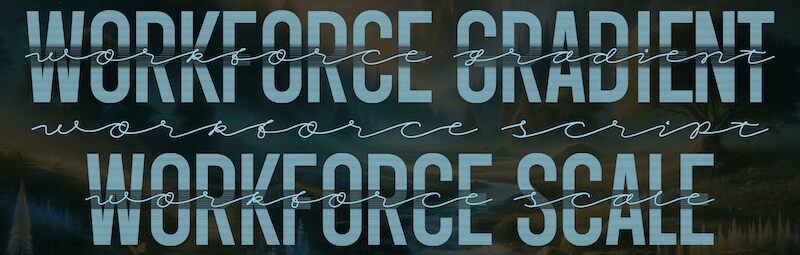
Workforce Gradient PERSONAL USE Regular
Workforce Gradient is a stylish blend of geometric sans-serif with swashes and script letters, ideal for logos, posters, branding design and other modern branding projects with a distinctive look and professional feel.
Designed by Mans Greback, Workforce Gradient will help your design stand out from the rest. It’s free for personal use.